Monospace typefaces crafted for programmers and coders
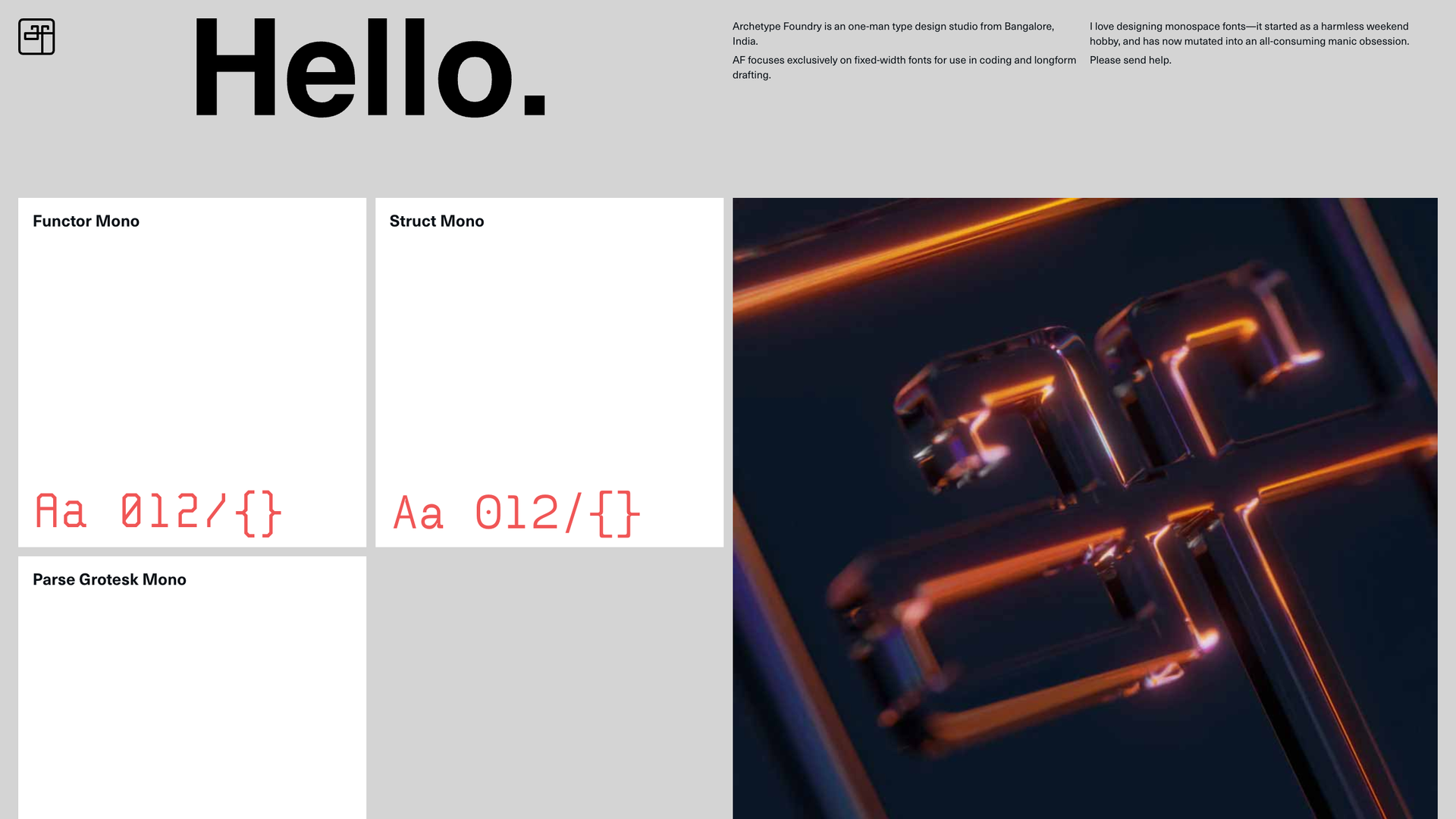
Archetype Foundry is a one‑person type design studio from Bangalore that creates high‑quality fixed‑width fonts tailored for coding and long‑form drafting. Their collection includes Functor Mono, Struct Mono, and Parse Grotesk Mono—each offering distinct angular, geometric, or curvaceous styles optimized for legibility on hi‑resolution screens. Perfect for developers and programmers seeking distinctive, readable monospace typefaces.